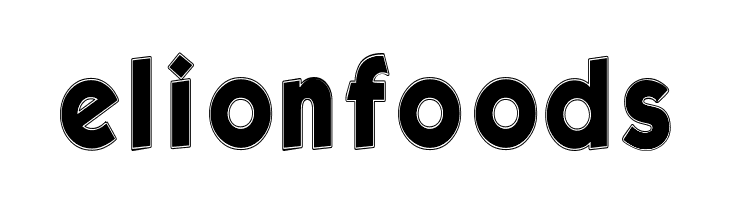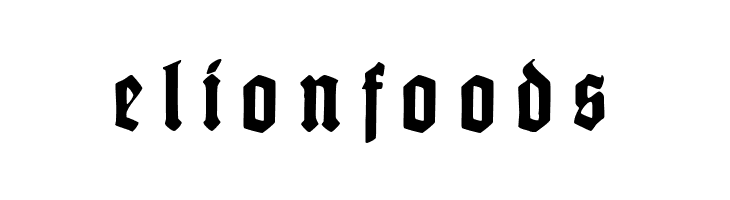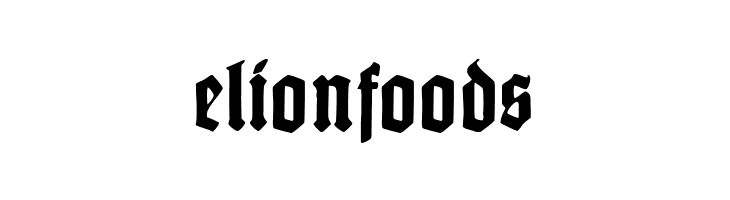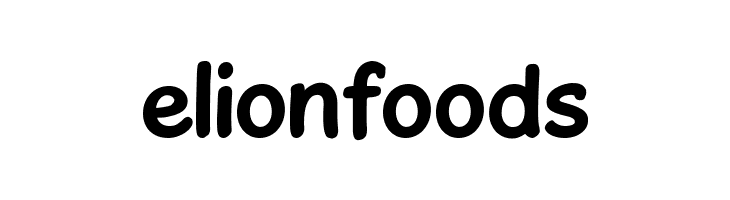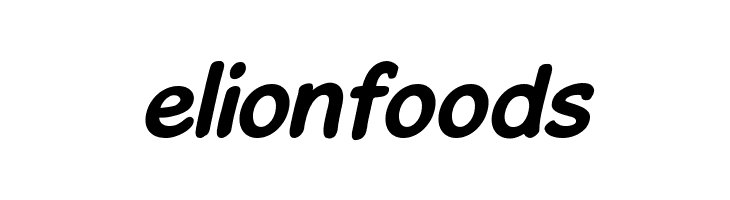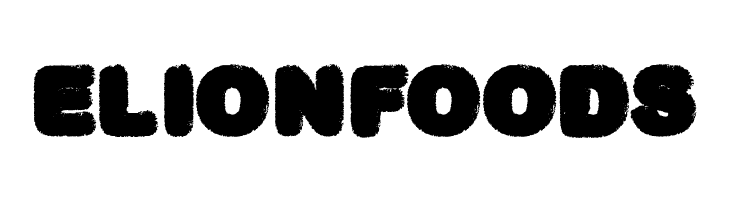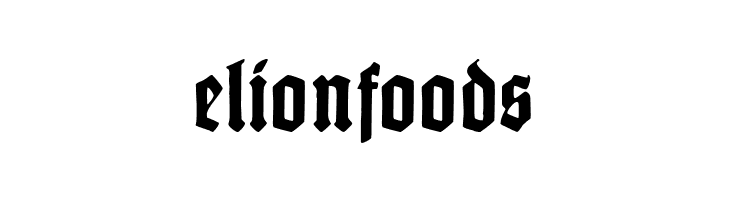
• GORILAZ PERSONAL USE 1 Bold
A bold, textured font with a distressed, rugged appearance.
• Gorlock Bold
A bold, modern font with thick, uniform strokes and a geometric influence.
• GosmickSansBold
A bold, rounded font with a playful and friendly style.
• GosmickSansBoldOblique
A bold, oblique font with rounded, smooth letterforms and a dynamic appearance.
• Gotenburg A Bold
A bold, blackletter font with intricate, angular designs ideal for dramatic and historical themes.
• Gotenburg B Bold
A bold Blackletter font with dramatic strokes and intricate detailing.
• Gotenburg B UNZ_1_L Bold
A bold, blackletter font with sharp, angular lines and a historical Gothic style.
• Gotenburg B UNZ_1_L Bold Italic
A bold, italic Blackletter font with sharp, angular strokes and a gothic aesthetic.
• GotenburgA-Bold
A bold, blackletter font with gothic, angular strokes and intricate detailing.
• GotenburgB-Bold
A bold blackletter font with sharp, angular lines and a modern edge.